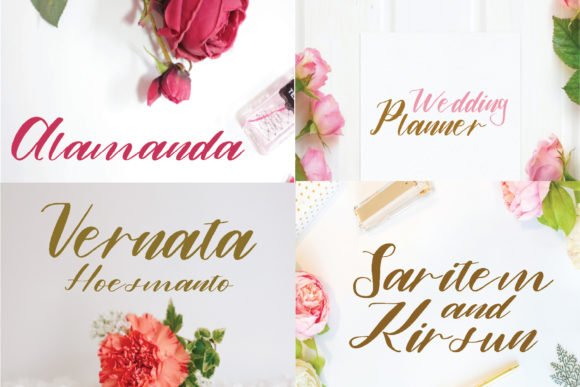
A New Era in Handwritten Fonts
There’s something magical about the moment when a font choice clicks – the perfect blend of style and message that makes your design truly pop. You’ve spent hours tweaking every detail, and then it happens: a single font choice elevates your entire project. For designers, this feeling is all too familiar, and that’s exactly why we’re excited to introduce the Auspicious Font – a brand new, stylish handwritten font designed to bring your next project to life.
With the Auspicious Font, you’ll be able to create stunning logos, posters, headlines, and social media posts that capture the essence of your brand. Whether you’re a seasoned pro or just starting out, this versatile font is sure to become a go-to favorite in your design arsenal.
Auspicious Font Key Features
- Unique Characteristics: Auspicious Font features a distinctive blend of modern and traditional design elements, with intricate details and ornate flourishes that add a touch of elegance and sophistication.
- Font Style: Auspicious Font is available in regular, bold, italic, and bold-italic styles, providing flexibility and options for designers to create visually appealing typography.
- Scalability: The font is designed to be highly scalable, retaining its clarity and legibility even at very small sizes, making it an ideal choice for digital applications, such as mobile devices and web design.
Auspicious Font Review
Auspicious Font is a beautiful, elegant script font that shines in its own unique way ✨. The font’s flowing lines and subtle flair make it perfect for adding a touch of sophistication to any design project. I particularly love how it performs well in large text sizes, making it ideal for headings and titles.
One of the standout features of Auspicious Font is its excellent legibility. The font is easy to read, even at small text sizes, which is a testament to the designer’s skill in creating a font that’s both visually appealing and functional.
While Auspicious Font is a great choice for many projects, there are a few limitations to be aware of ⚠️. For one, the font can be quite heavy, which may not be suitable for projects where a more minimalist aesthetic is desired. Additionally, the font’s intricate details can make it difficult to read at very small text sizes.
Auspicious Font is a great choice for designers looking to add a touch of elegance to their projects. While it may not be the best fit for every project, it’s definitely worth considering for those where a sophisticated, high-end look is desired.
- Beautiful, elegant script design ✨
- Excellent legibility, even at small text sizes
- Perfect for headings, titles, and large text sizes
- May be too heavy for minimalist designs ⚠️
- Can be difficult to read at very small text sizes
Use the Auspicious Font in Canva’s text editor to create eye-catching headings and titles.
Apply the Auspicious Font to vector graphics for a unique, hand-drawn look.
Use the Auspicious Font in presentations and documents to add a touch of elegance and sophistication.
The Auspicious Font is perfect for:
- Brand identity and logos
- Book covers and literary designs
Alternatives to Auspicious Font
Playfair Display is an elegant and luxurious serif font, ideal for use in high-end branding, invitations, and luxury products. Its intricate details and flourishes make it a perfect choice for designers looking to add sophistication and refinement to their designs.
Compared to Auspicious Font, Playfair Display has a more ornate and elaborate feel, making it more suitable for formal and high-end applications. While Auspicious Font has a more modern and sleek look, Playfair Display has a classic and timeless feel.